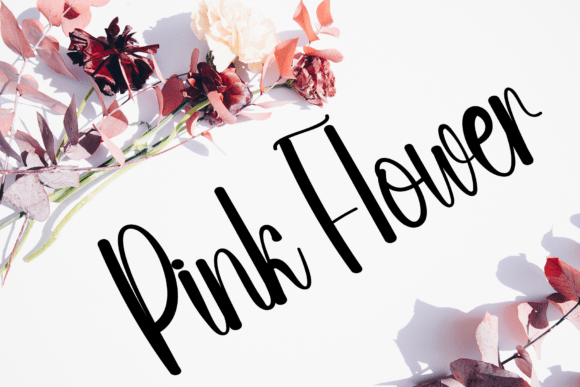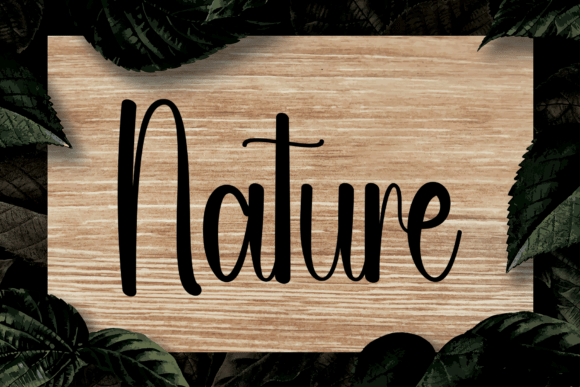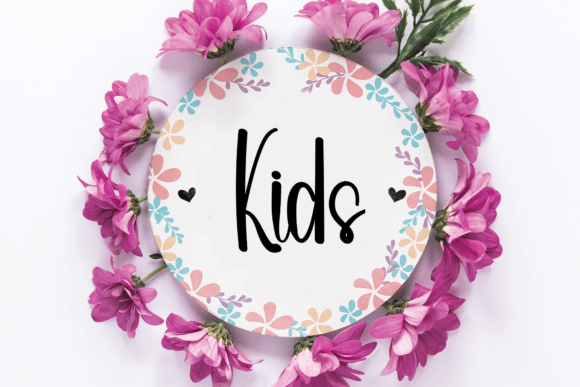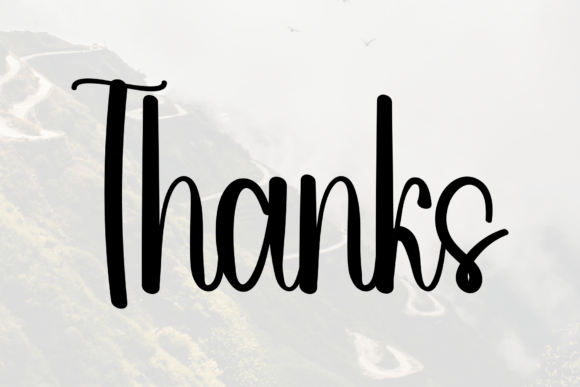
Discover the Charm of Benatica Font: Elevate Your Designs with Heartfelt Perfection
In the world of typography, few fonts manage to capture the essence of warmth and personality as effectively as Benatica. This charming handwritten font is designed to infuse your designs with a sense of heartfelt perfection, making it an ideal choice for creatives looking to add a personal touch to their work. With its smooth strokes and organic lines, Benatica evokes a relaxed atmosphere that can elevate a variety of design projects, from branding and invitations to social media graphics and beyond.
The Unique Characteristics of Benatica Font
Benatica’s appeal lies in its unique blend of elegance and informality. The font’s smooth, flowing lines are reminiscent of handwritten scripts, yet it maintains a level of sophistication that makes it suitable for professional applications. Each letterform is carefully crafted to convey a sense of warmth and approachability, making Benatica a versatile tool for designers aiming to create a personal connection with their audience.
Applications of Benatica Font
The versatility of Benatica font is one of its most compelling features. Here are some of the key areas where Benatica can make a significant impact:
- Branding: Establish a personal and approachable brand identity with Benatica. Its unique charm can help your brand stand out in a crowded market, making it more relatable and memorable to your target audience.
- Invitations: Whether you’re planning a wedding, a birthday party, or any other special occasion, Benatica can add a touch of elegance and warmth to your invitations, setting the tone for a memorable event.
- Social Media Graphics: In the digital age, social media presence is crucial. Benatica can help you create engaging and visually appealing graphics that reflect your personality or brand identity, making your content more engaging and shareable.
- Packaging: For crafters and small business owners, Benatica can add a personal touch to product packaging, making it more appealing to customers and helping to build a loyal customer base.
Why Choose Benatica Font?
With so many fonts available, why should Benatica be your go-to choice? Here are a few reasons:
- Emotional Connection: Benatica’s design helps create an emotional connection with your audience. Its warmth and personality can make your message more relatable and engaging.
- Versatility: From digital applications to print materials, Benatica’s versatility ensures it can be used across a wide range of projects, making it a valuable addition to any designer’s toolkit.
- Easy to Read: Despite its artistic nature, Benatica remains highly legible, ensuring that your message is communicated clearly and effectively.
How to Use Benatica Font Effectively
To make the most of Benatica, consider the following tips:
- Pair with Complementary Fonts: For maximum impact, pair Benatica with fonts that complement its style. A combination of serif and sans-serif fonts can create visual interest and hierarchy in your designs.
- Experiment with Colors: Benatica looks great in a variety of colors. Experiment with different hues to find the perfect match for your brand or project’s aesthetic.
- Play with Sizes: Don’t be afraid to vary the size of your text. Larger headings can make a bold statement, while smaller body text ensures readability.
Benatica font offers a unique blend of charm, elegance, and versatility that can elevate your design projects to new heights. Whether you’re a professional designer or a crafter looking to add a personal touch to your work, Benatica is an excellent choice. Its ability to evoke a relaxed atmosphere and create an emotional connection with your audience makes it a valuable tool in the world of design. So, why settle for ordinary when you can add a touch of heartfelt perfection to your creations with Benatica?
Embrace the charm of Benatica and discover a world of design possibilities that are as limitless as your imagination.